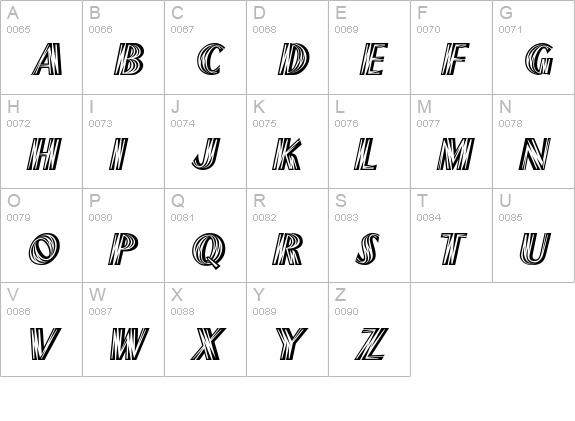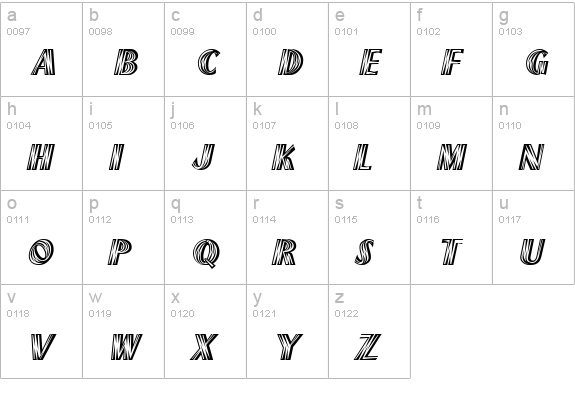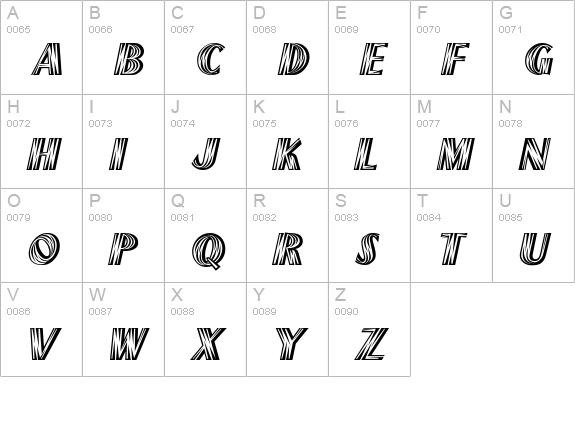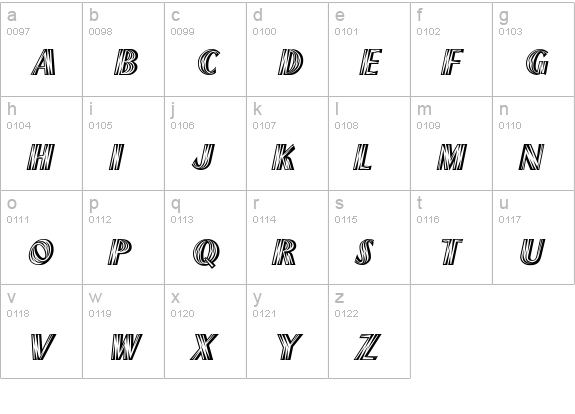
Plank Italic is a distinctive, italic variant in the Plank typeface family \xE2\x80\x94 well suited to design and typography projects.
Introducing Plank Italic, a stunning and contemporary font that effortlessly blends elegance with a touch of edginess. With its sleek and slanted letterforms, Plank Italic exudes a sense of sophistication and modernity, making it the perfect choice for a wide range of design projects. This font's unique italic style adds a dynamic and captivating element to any text, making it stand out and command attention. Whether you're designing a sleek logo, crafting eye-catching headlines, or creating stylish invitations, Plank Italic will be your go-to font to make a bold statement. Besides its visually striking appearance, Plank Italic also offers exceptional versatility. From corporate branding to editorial layouts, this font seamlessly adapts to any design concept, adding a touch of class and professionalism. Its clean lines and refined curves create a harmonious balance that is both visually pleasing and easy to read. And the best part? Plank Italic is available for free! That's right, you can download this remarkable font at FontsMarket.com without spending a dime. Now, you can elevate your design projects without breaking the bank. So why wait? Get your hands on Plank Italic today and let your creativity soar to new heights.